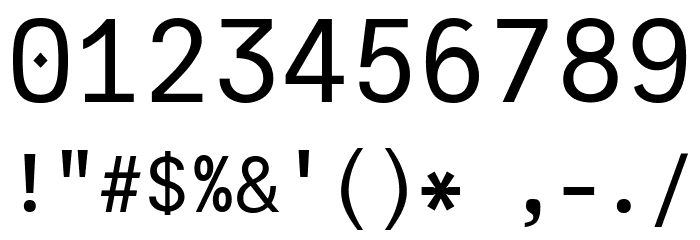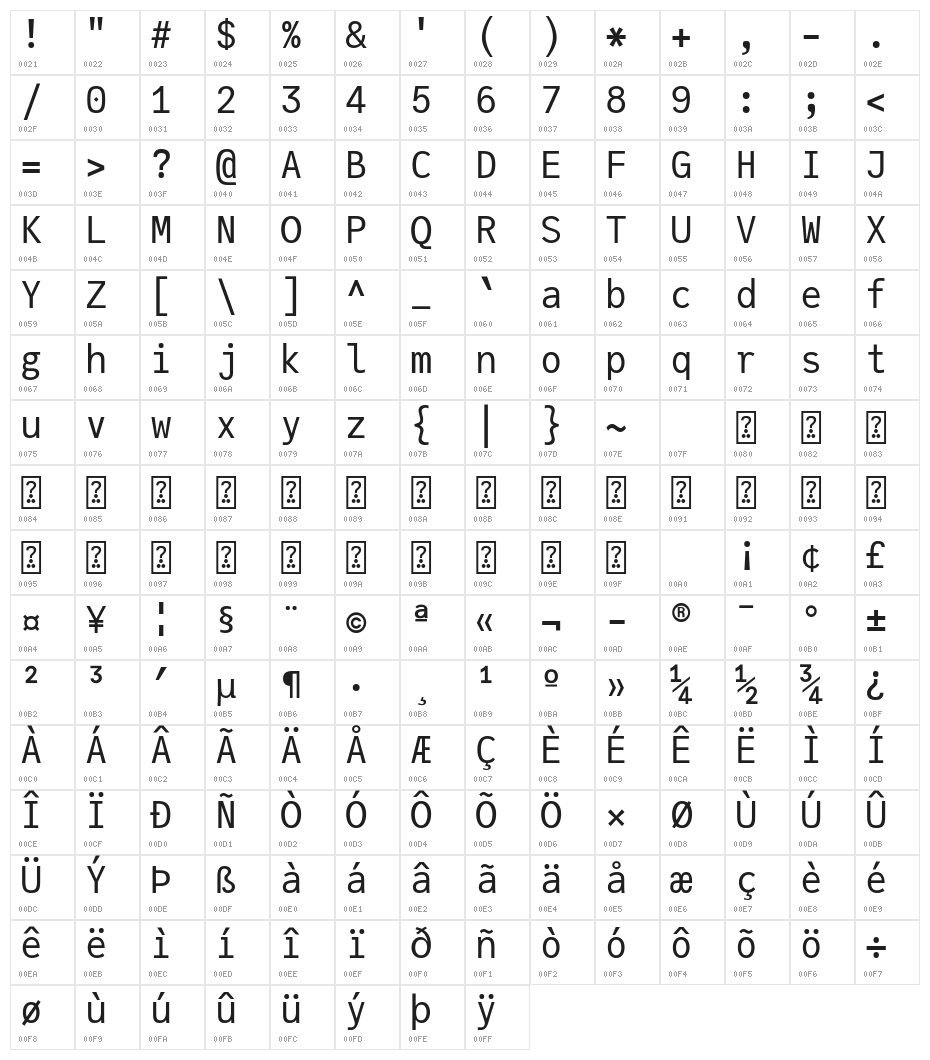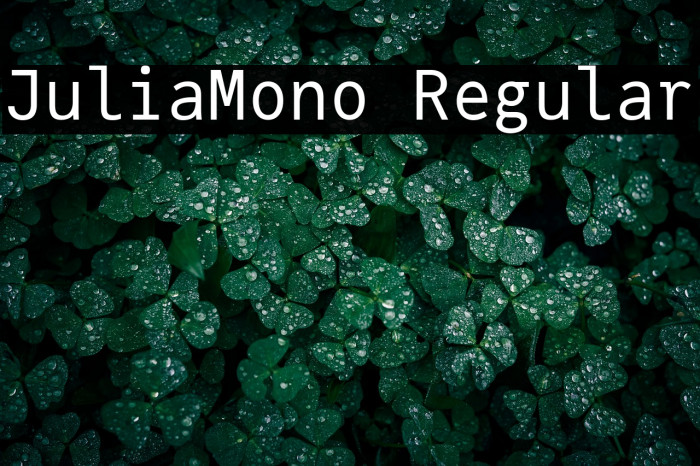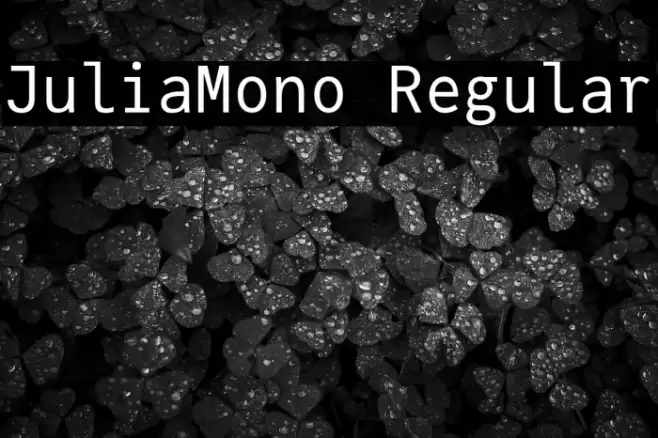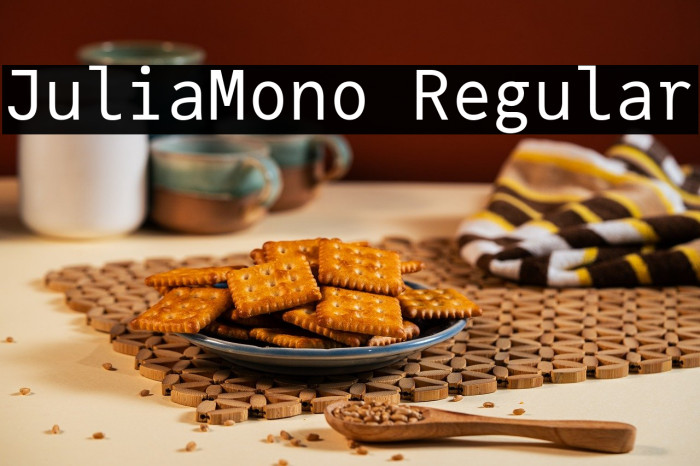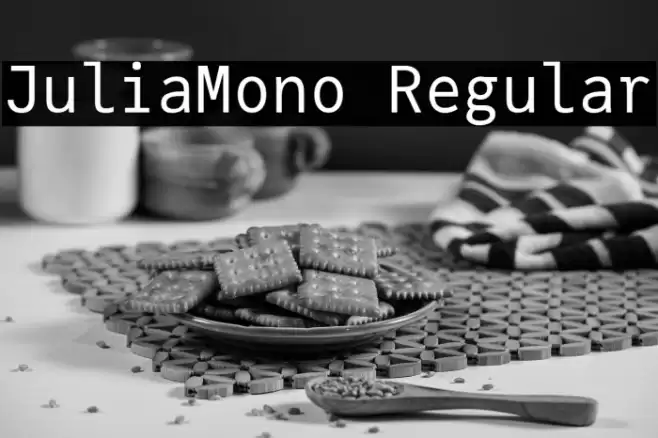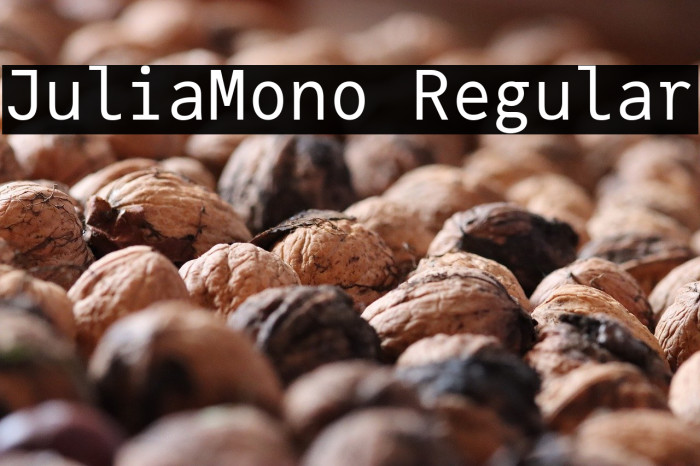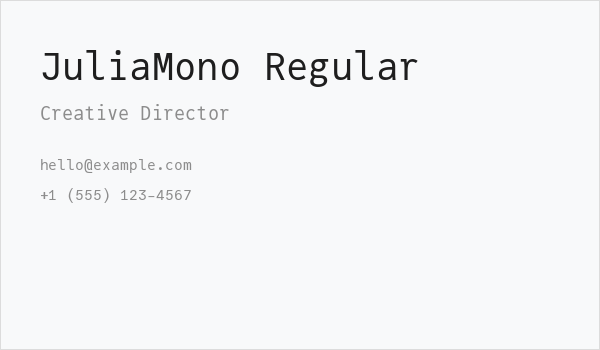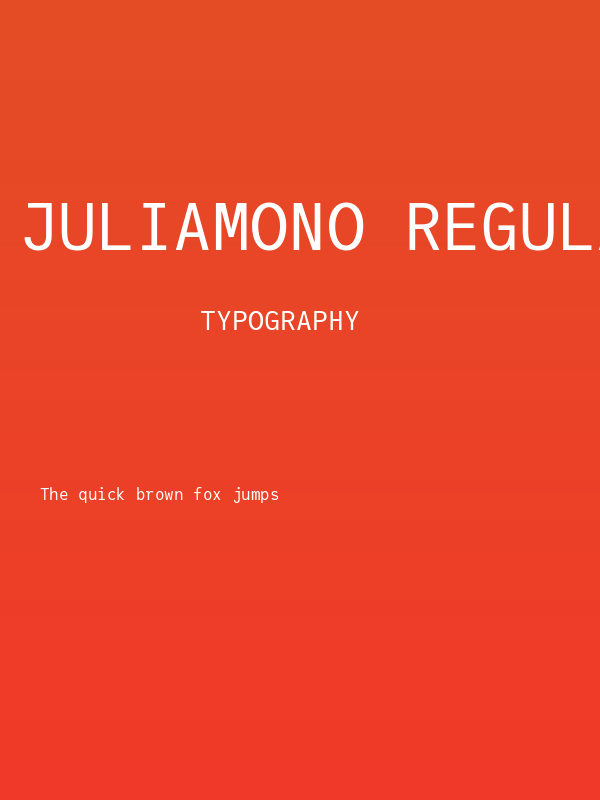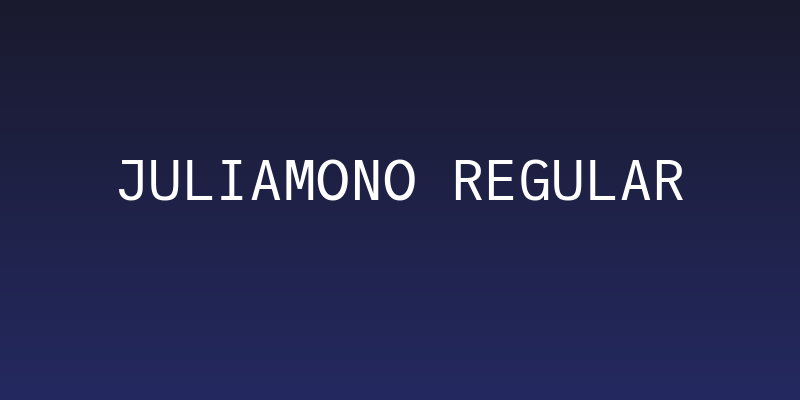
JuliaMono Regular Font
JuliaMono Regular Description
This font features a clean and modern design with a monospaced style, providing uniformity and precision. Each character is crafted with a consistent width, making it ideal for coding and technical documentation. The uppercase and lowercase letters are well-proportioned, offering clarity and readability. The numerals are distinct and easy to differentiate, while the special characters are straightforward and functional. The overall appearance is minimalistic, with a focus on functionality and legibility, making it suitable for both digital and print media.
| Use Case | Coding, Technical documentation, Data tables |
| Proposed Projects | Perfect for coding environments, technical documentation, data tables, and any project requiring precise alignment. |